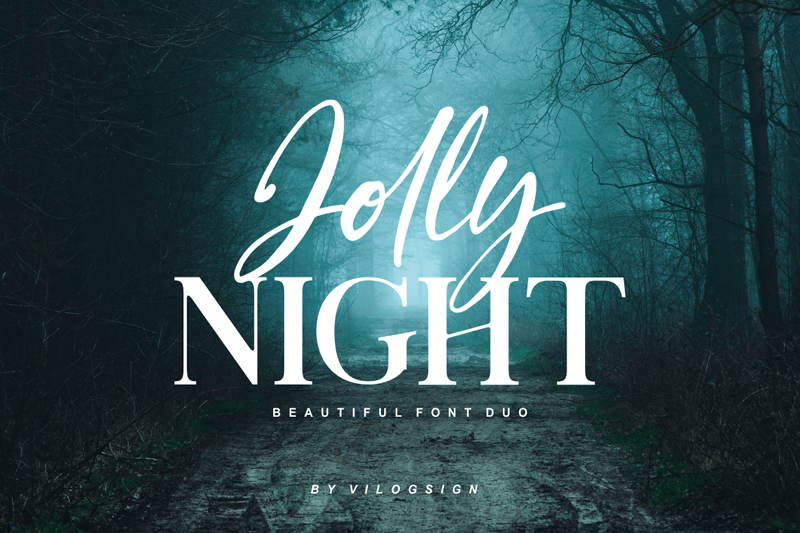
Hi,,, Introducing new my font in new years is called "Jolly Night Font Duo". This is beautiful font duo elegant stylish, contemporary pair of script and serif fonts. This font is very good with additional alternatives like multilingual support and italic style for Night font to complement your needs. With ccombination Jolly font make this font so perfect for your project. This font look natural, modern but classic and elegant, very suitable to make a branding, magazine, fashion, quotes, logo, and other. Link to purchase full version and commercial license https://www.creativefabrica.com/product/jolly-night-duo/ https://fontbundles.net/vilogsign/415305-jolly-night-font-duo#gtmList=5>mPos=1 visit my $1 deal : https://thehungryjpeg.com/product/3676040-jolly-night-font-duo |